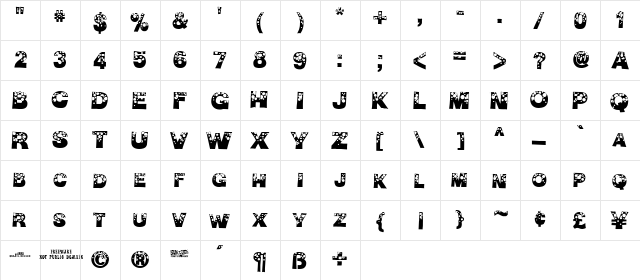
Bubble Man Regular
Design Context for Bubble Man Typeface
Bubble Man trades formality for fun, with bouncy, characterful letterforms that bring warmth and energy to any project.